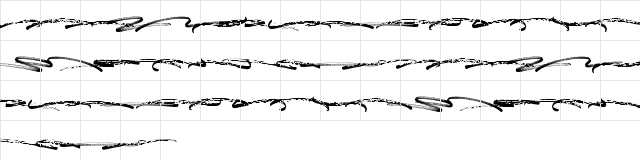
Blastimo Swash Regular
Design Context for Blastimo Swash Typeface
Blastimo Swash brings a calligraphic fluidity to the page — its connecting strokes and expressive curves give it an unmistakably human quality.
Font Pairing: Combine Blastimo Swash with a simple geometric sans for maximum contrast — the tension between flowing curves and clean structure is a classic typographic pairing.
Pro Tip: Use Blastimo Swash for short runs of text — names, titles, or taglines. Extended body copy in script faces tires the eye quickly.